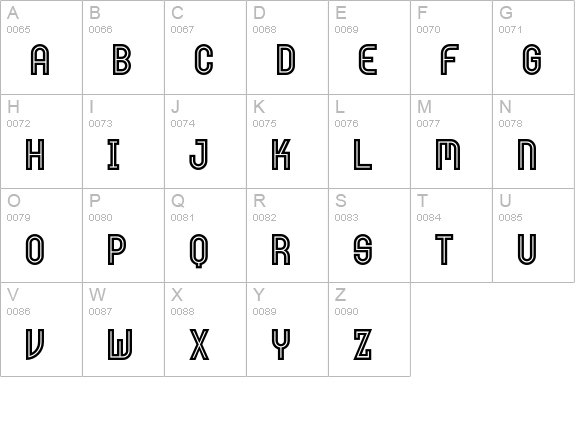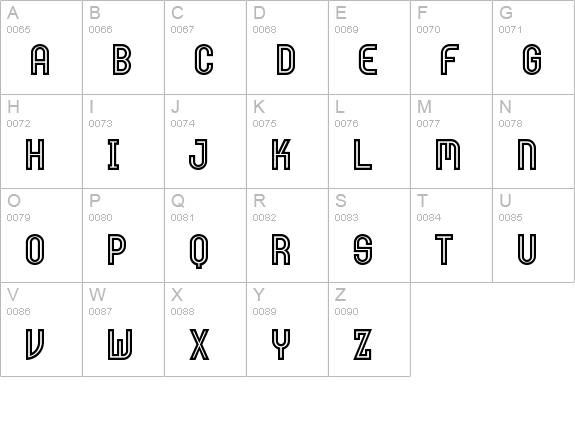
Introducing Tokyo-One, a stunning and versatile font that effortlessly captures the essence of modern Tokyo. With its sleek lines and contemporary design, this font is perfect for adding a touch of sophistication to any project. Whether you're creating a captivating logo, designing a sleek website, or crafting eye-catching marketing materials, Tokyo-One is the ideal choice. But what truly sets Tokyo-One apart is its amazing feature: it is free. That's right, this incredible font is available to download at absolutely no cost. FontsMarket.com, the leading platform for quality fonts, offers Tokyo-One as a freely accessible resource for designers, creatives, and typography enthusiasts alike. With Tokyo-One, you not only get a versatile and visually stunning font, but you also get the freedom to use it in any way you desire. The clean and crisp letterforms of Tokyo-One make it highly legible, ensuring that your message is effectively conveyed to your audience. Whether you're looking to create sleek headlines, captivating titles, or elegant body text, Tokyo-One has you covered. Its wide range of weights and styles allows you to experiment and find the perfect balance for your designs. From thin and delicate to bold and impactful, Tokyo-One offers endless possibilities to truly bring your vision to life. Embrace the modern aesthetic of Tokyo and let Tokyo-One elevate your designs to new heights. Download it for free today at FontsMarket.com and unlock the potential of this remarkable font. Experience the freedom of creativity with Tokyo-One, the font that effortlessly blends sophistication, versatility, and accessibility.